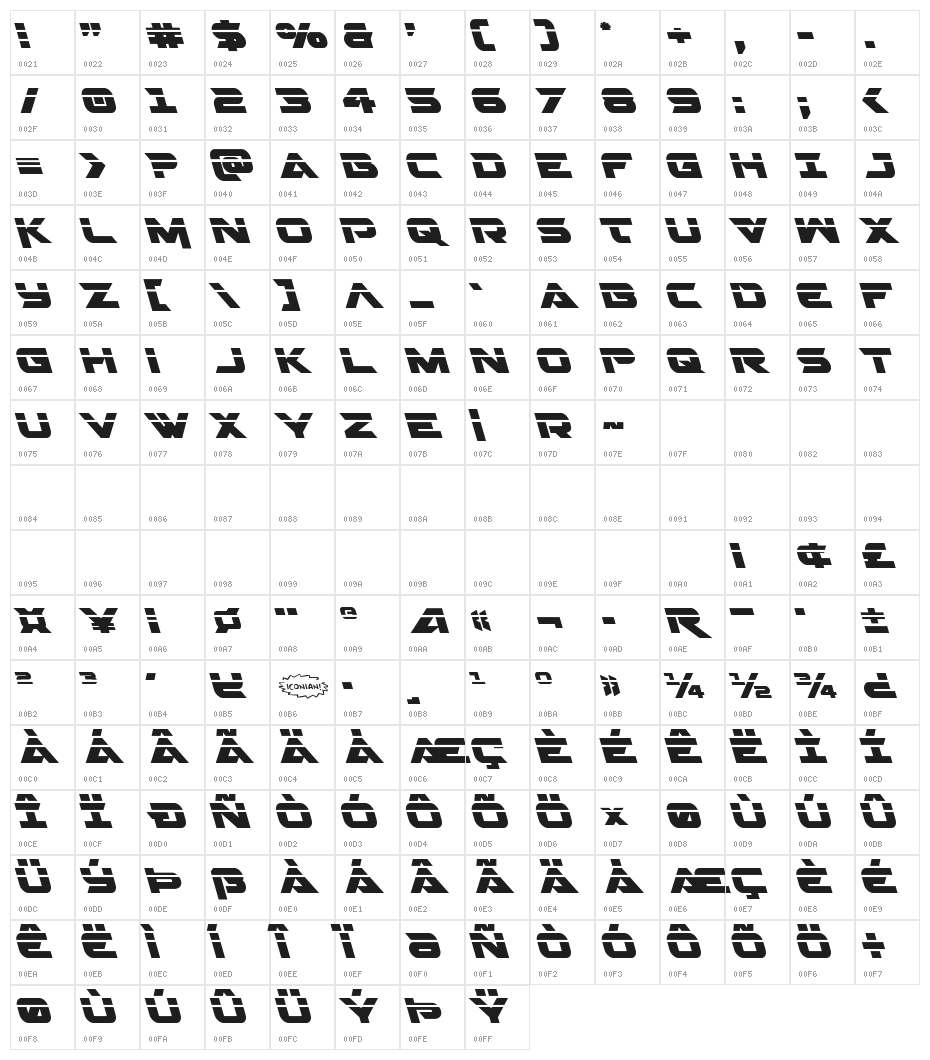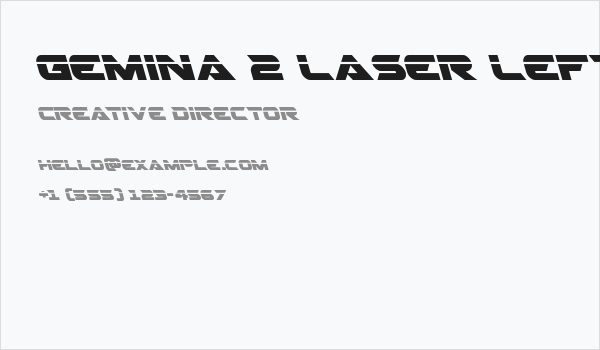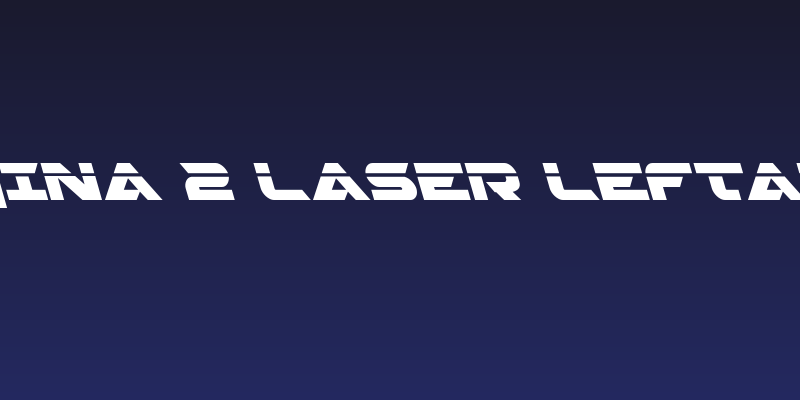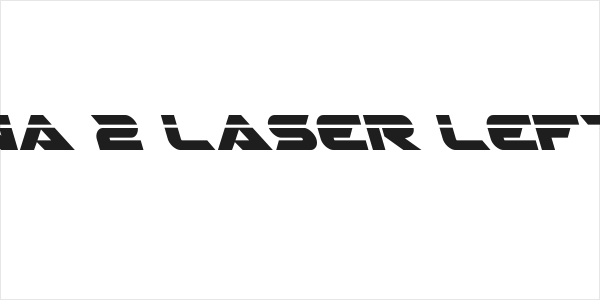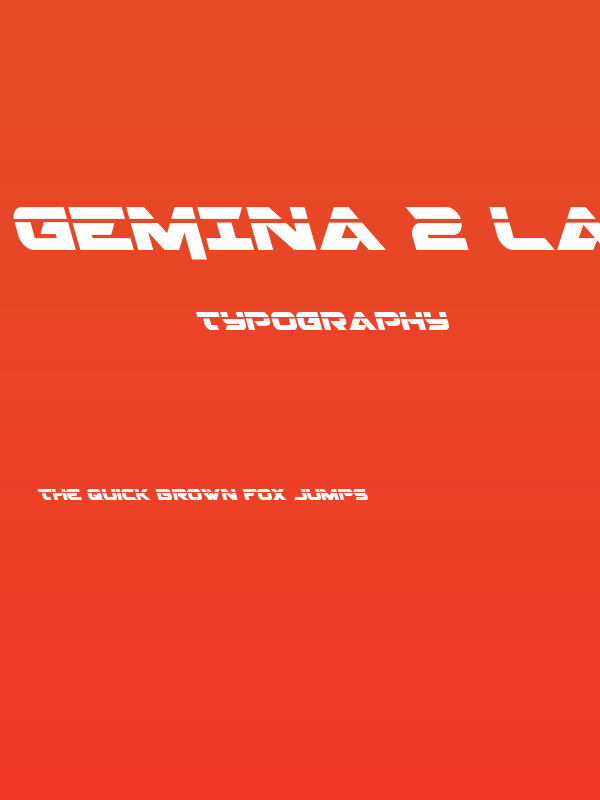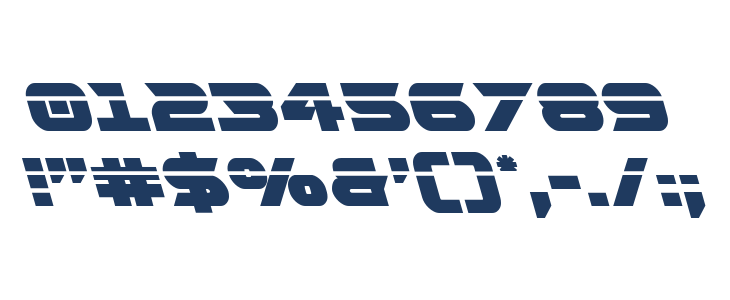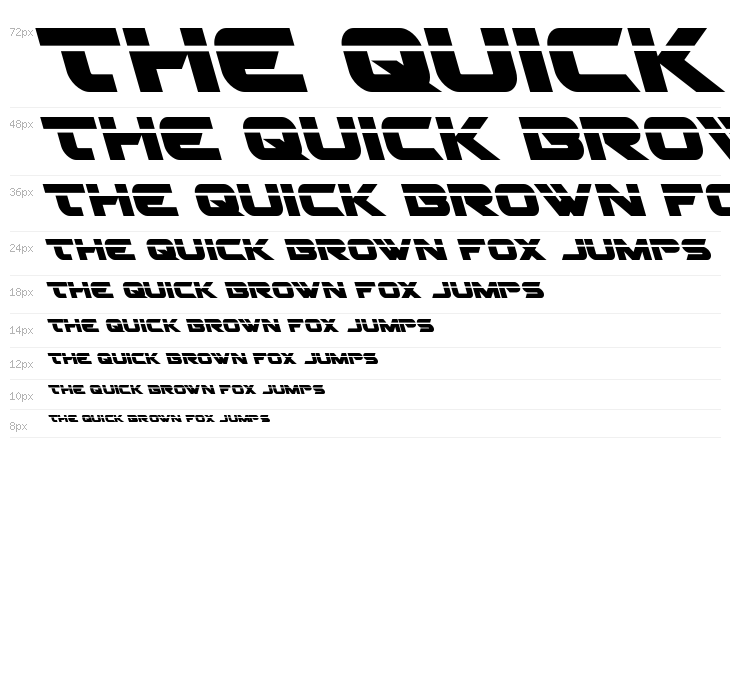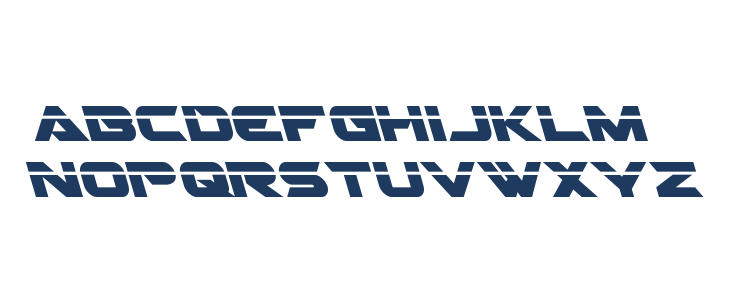
Gemina 2 Laser Leftalic Font
Gemina 2 Laser Leftalic Description
This font features a bold, futuristic design with sharp angles and geometric shapes, creating a dynamic and modern appearance. The characters are uniquely styled with cut-out sections, giving them a high-tech, digital feel. The uppercase and lowercase letters maintain a consistent style, while the numerals and special characters complement the overall aesthetic. The font's bold weight and distinct style make it ideal for attention-grabbing headlines and logos. Its angular design suggests movement and speed, making it suitable for projects related to technology, gaming, or science fiction.